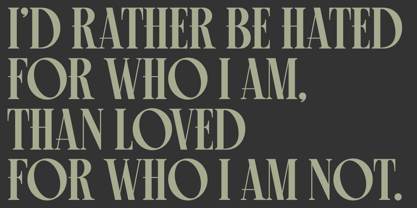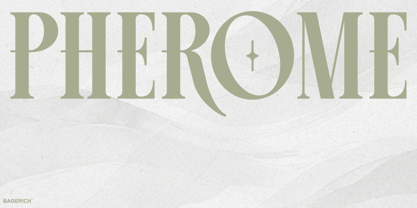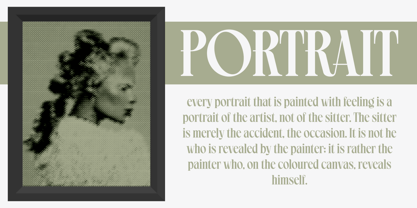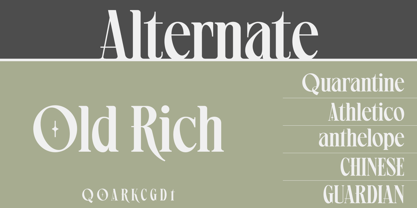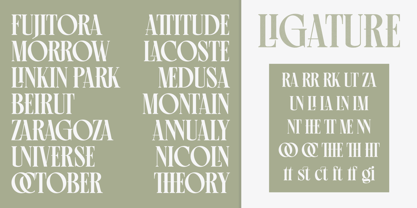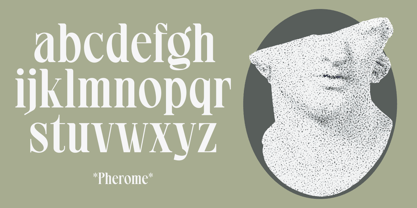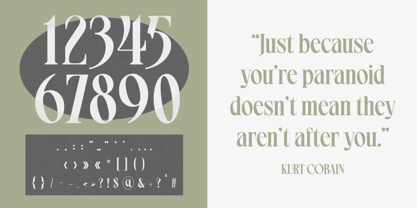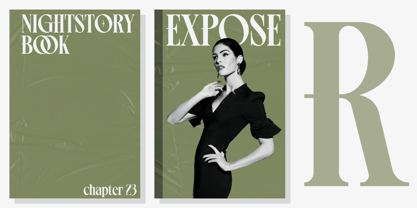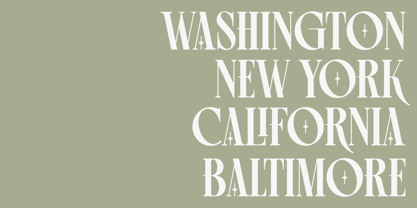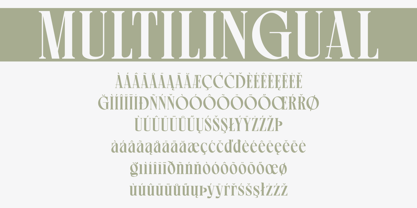
Pherome
Pherome is a striking example of a modern decorative serif that leans heavily into "high-fashion" and avant-garde aesthetics. It is characterized by its dramatic contrast between thick stems and razor-thin hairlines, a hallmark of the Didone style, but updated with sharp, aggressive terminals and unique ligatures. The most standout feature is the elongated, sweeping tail on the letter "R," which adds a sense of fluid movement and organic elegance to an otherwise structured and monumental typeface. Beyond its technical geometry, the font exudes a sophisticated, ethereal mood that feels both ancient and futuristic. The inclusion of a delicate four-pointed star (or sparkle) within the counter of the "O" suggests a mystical or premium quality, making it an ideal choice for luxury branding, editorial headlines, or fragrance packaging. It manages to balance a sharp, intimidating edge with a soft, artistic grace, ensuring that any text rendered in it commands immediate attention while maintaining a high level of visual intrigue.